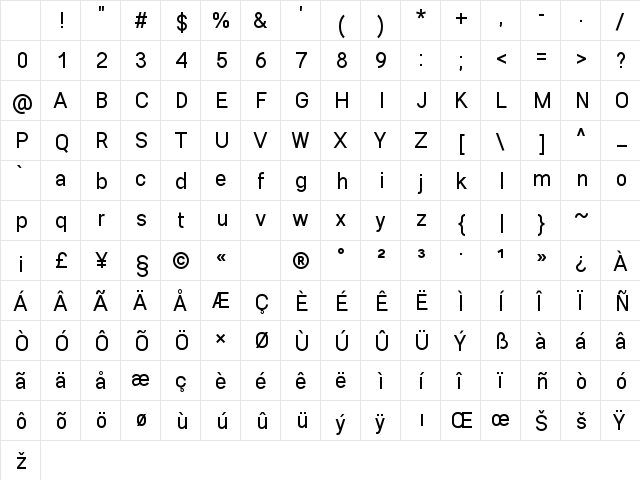
Complete Aftetir Regular glyph index. Displaying only characters natively supported by Aftetir Regular font.
Aftetir is a composed and adaptable typeface that performs quietly and consistently across a wide range of design contexts.